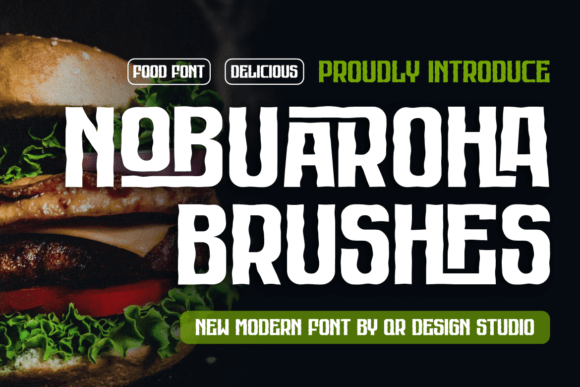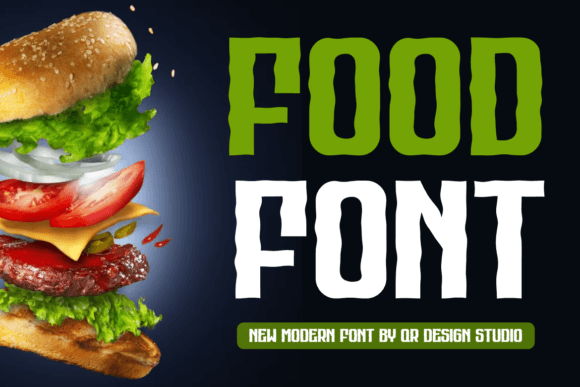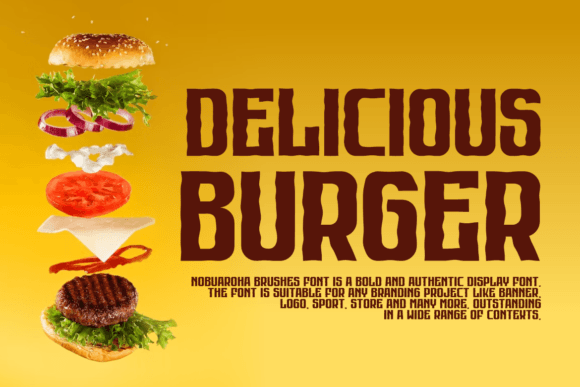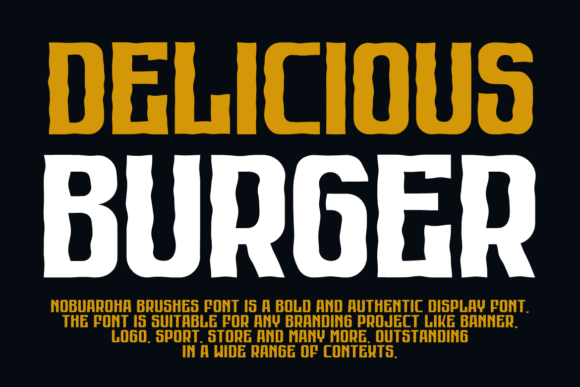
Nobuaroha Brushes Font
About the Nobuaroha Brushes Font
Explore the possibilities with Nobuaroha Brushes Font, a font that offers both beauty and functionality. Nobuaroha Brushes Font is a bold and authentic display font.
The font is suitable for any branding project like logo, food, and many more.
Outstanding in a wide range of contexts.
Nobuaroha Brushes’ bold strokes make it ideal for headlines, short impactful statements, and logos requiring a strong visual presence. It excels in branding for products emphasizing craftsmanship or a handmade aesthetic, such as artisanal food, craft breweries, or boutique clothing lines. However, its highly textured nature makes it unsuitable for body text or UI elements where readability is paramount. Avoid using it in long paragraphs or for small sizes.
Pairing Nobuaroha Brushes with a clean sans-serif like Montserrat or a crisp geometric font like Futura would create a strong contrast and balanced visual hierarchy. For a warmer feel, consider pairing it with a classic serif such as Garamond or a more modern serif like Playfair Display. Script fonts should be avoided as they would compete for visual attention and create an overly busy design.
The overall personality of Nobuaroha Brushes is bold, authentic, and slightly rustic. Its handcrafted feel lends itself to projects requiring a sense of handcrafted quality and trustworthiness.
Nobuaroha Brushes Font Usage Examples
Nobuaroha Brushes Font Example